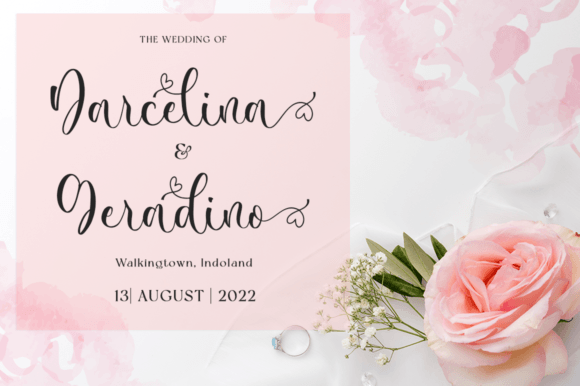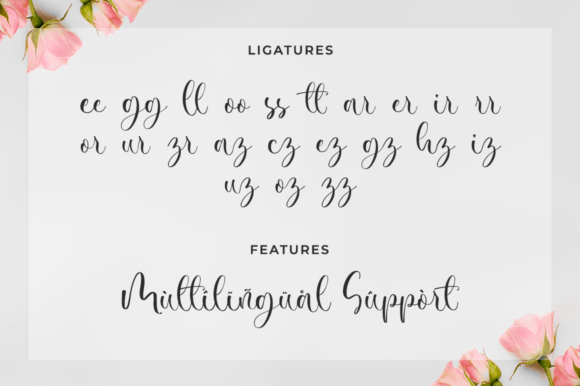
About Mecadonia Font
“Mecadonia” is a stunning and delicately crafted handwritten font that exudes a sense of uniqueness and elegance. It possesses a remarkable impact that can elevate the aesthetics of any design project you have in mind. Whether you’re working on a luxurious brand identity, an elegant invitation, or any creative endeavor, “Mecadonia” is designed to infuse a touch of luxury and sophistication.
One of the standout features of this font is its PUA encoding, which allows you to effortlessly access a wide array of incredible glyphs and ligatures. This feature enhances your creative flexibility, enabling you to customize and personalize your designs with ease, ensuring that your projects truly stand out.
Incorporating “Mecadonia” into your design work can help you achieve a sense of opulence and style, making it perfect for projects that demand a high-end look and feel. Whether you’re striving to create a visual masterpiece or aiming to add a luxurious touch to your work, “Mecadonia” is the font that can help you achieve your design goals with grace and impact.